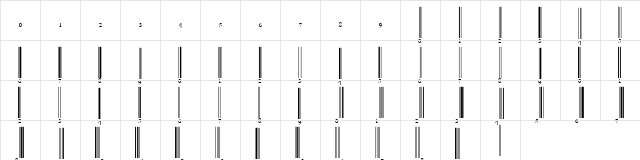
EAN-13 Regular Font Preview
EAN-13 Regular
EAN-13 Regular Font Details
Design Context for EAN-13 Typeface
EAN-13 is a composed and adaptable typeface that performs quietly and consistently across a wide range of design contexts.